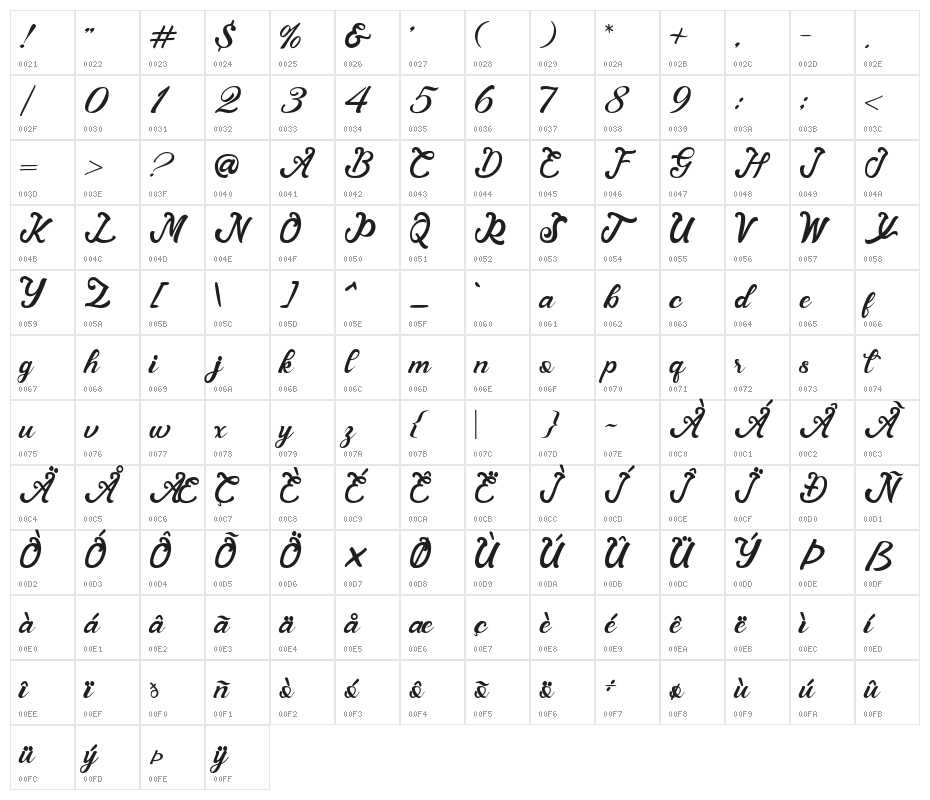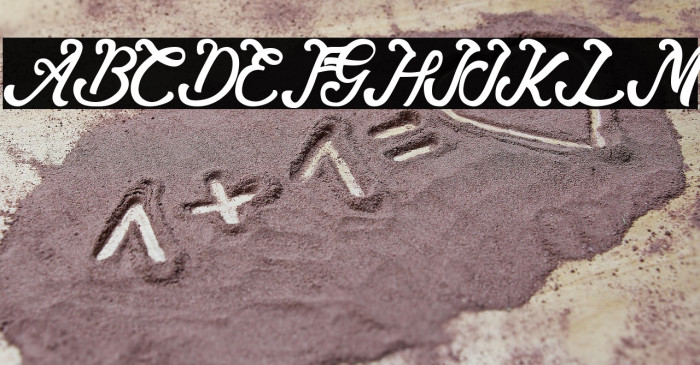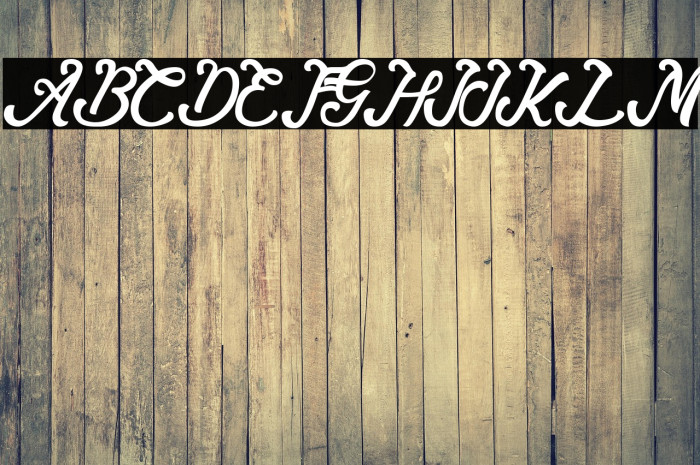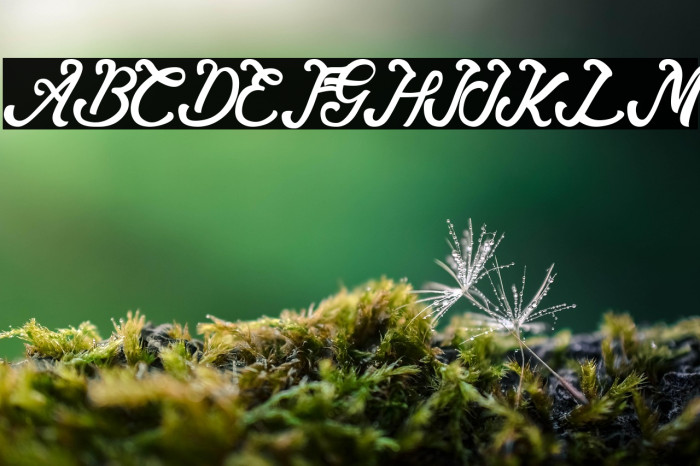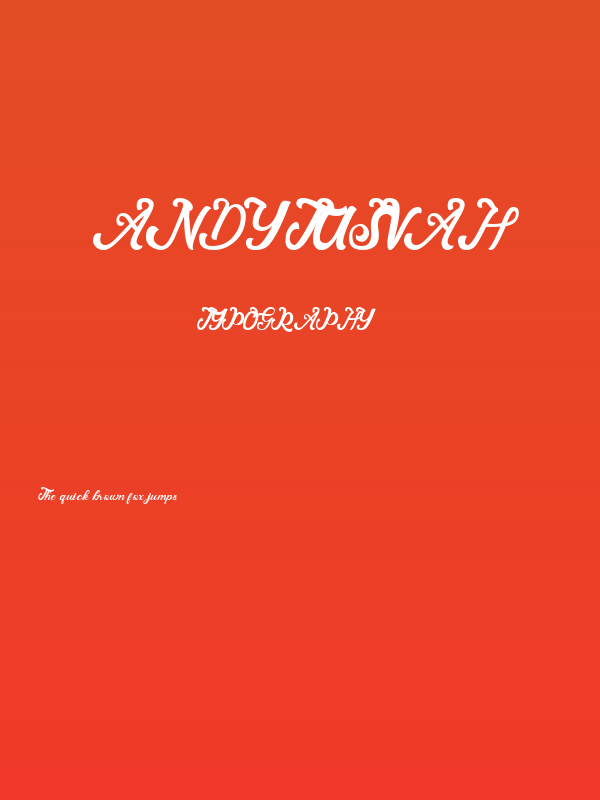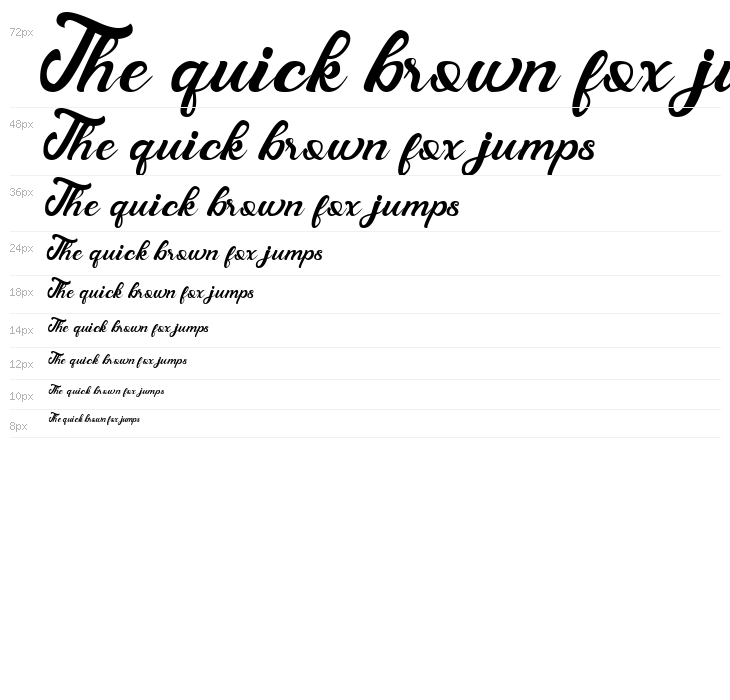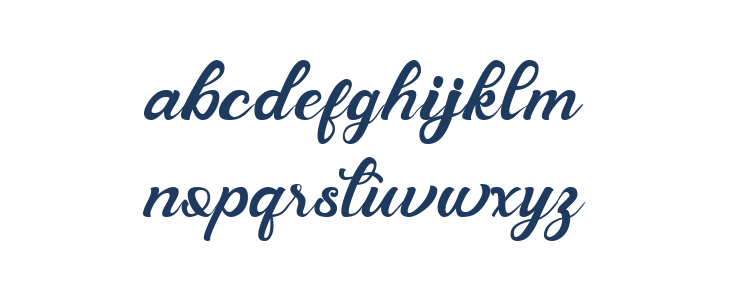
Andy Tusvah Font
Andy Tusvah Description
This font exudes a classic and elegant script style, characterized by its flowing, cursive letters that mimic traditional handwriting. The uppercase letters are bold and ornate, with intricate loops and flourishes that add a touch of sophistication. The lowercase letters maintain a consistent flow, enhancing readability while preserving the decorative essence. Numbers are styled to match the script's elegance, making them suitable for formal invitations or certificates. Special characters are seamlessly integrated, maintaining the overall aesthetic. This font is ideal for projects that require a touch of class and refinement.
| Use Case | Headlines, Invitations, Branding |
| Proposed Projects | Ideal for wedding invitations, formal event programs, elegant branding, and certificates. |